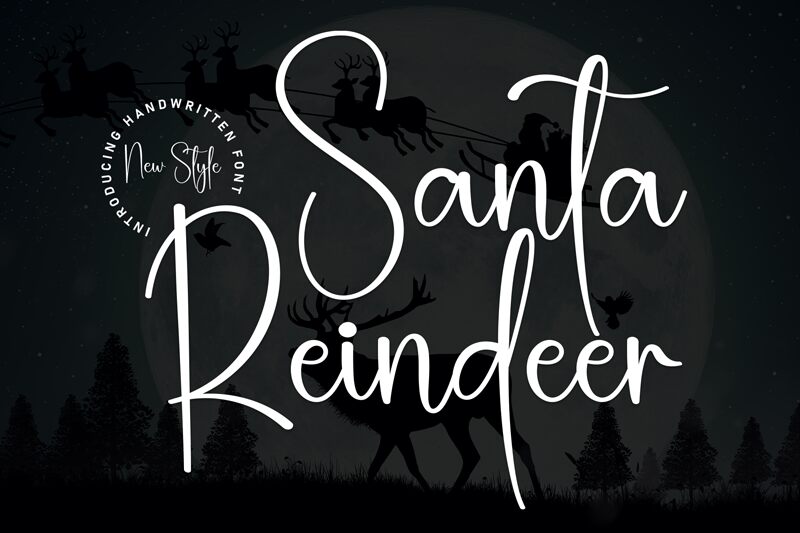
Santa Reindeer font is a free personal use script font by Scratchones. The beautiful flowing letters of this font bring elegance and warmth to the writings, resonating with a joyful spirit. This stylish type is modern in its shape while maintaining a classic touch. It features a consistent handwriting with just the right amount of dynamic movement, making your design pieces stand out.
You can expect it to introduce a contemporary visual style that matches the holiday theme of your project. Want to greet your loved ones with a card design, a gift, or a letter? Santa Reindeer is perfect for all holiday purposes whether they are invitations, posters, banners, or digital designs. It will revamp your social media channels with a simple post image.
Branding and packaging projects like shopping bags, greeting cards, stickers, mugs, and T-shirts, on the other hand, can get more sophisticated with it. Business cards, wall art prints, and prints on textiles are a couple more ideas of how you can use this font.